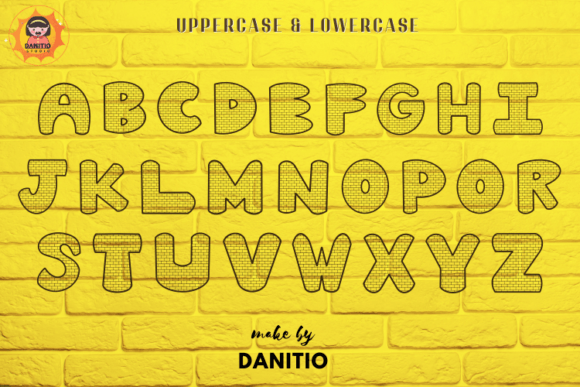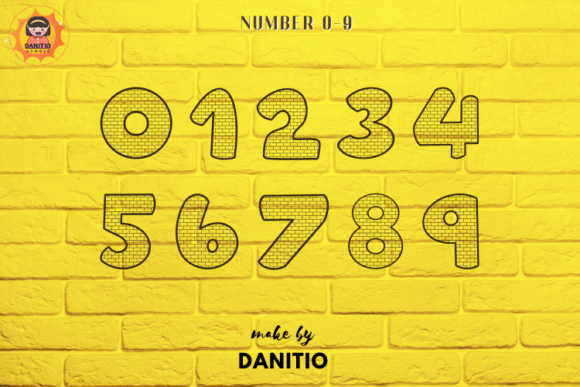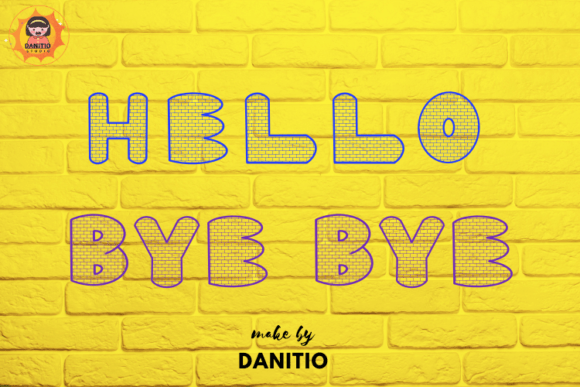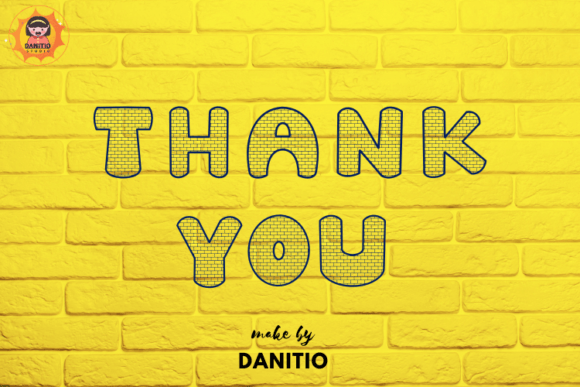
The Ultimate Brick Font: Where Creativity Meets Reality
Remember the moment when you stumbled upon that perfect font, and your design just clicked? It’s a feeling that’s hard to describe, but it’s a mix of excitement, relief, and a dash of creativity. For designers, finding the right font can be a game-changer, and that’s exactly what the Brick Font has to offer.
The Brick Font is a decorative font that’s designed to resemble a brick wall, adding a touch of whimsy and fun to any design. Whether you’re working on a craft project, creating a digital design, or putting together a presentation, this font has the potential to take your work to the next level. Its unique appearance makes it a valuable asset for designers, and its versatility means it can be used for a wide range of projects.
Key Features of Brick Font
- Unique Characteristics: Brick Font features a distressed, retro aesthetic with a focus on bold lines and geometric shapes, giving it a distinctive and eye-catching appearance.
- Font Style: Brick Font is available in multiple styles, including Regular, Bold, Italic, and Bold Italic, providing designers with a range of options to suit their design needs.
- Language Support: Brick Font supports a wide range of languages, including English, Spanish, French, German, Italian, and many others, making it a versatile choice for global design applications.
Brick Font Review
At first glance, Brick Font appears to be a unique and eye-catching font. ✨ Its chunky, textured design is reminiscent of retro video games and adds a fun, playful touch to any project. The font is available in a range of weights, from light to bold, making it versatile for various design applications.
The Brick Font family includes a variety of styles, such as Regular, Italic, and Bold. It also comes with a range of language support, including Latin, Cyrillic, and Greek alphabets. ✨ This makes it a great option for designers working on projects that require multilingual support.
- ⚠️ Limited stylistic flexibility: While the font has a clear, distinctive look, it may not be suitable for projects that require a more subtle or refined design aesthetic.
- ⚠️ May not be suitable for small text sizes: Due to its chunky design, Brick Font may become difficult to read when used in small text sizes or at very large font sizes.
Overall, Brick Font is a fun and versatile font that can add a unique touch to various design projects. While it may have some limitations, it’s definitely worth considering for projects that require a bold, eye-catching design.
For a more authentic brick look, use a bold font weight and a warm color scheme.
For a more realistic brick look, use a combination of texture and gradient overlays.
The Brick Font is commonly used in:
- Construction and architecture designs.
- Industrial and urban themed graphics.
- Street art and graffiti designs.
- Branding and marketing materials for construction companies.
Remember to use the Brick Font in a way that complements the overall aesthetic of your design.